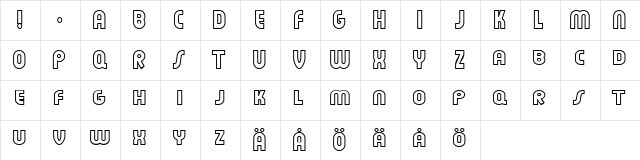
Feuerfeste Outline Normal
Feuerfeste Outline brings ornamental detail and strong personality to headlines and identities, where visual impact matters more than quiet functionality.
Font Pairing: Pair with a clean neutral sans-serif for body copy to let Feuerfeste Outline's character lead without overwhelming the composition.
Pro Tip: Use Feuerfeste Outline exclusively at display sizes — it was designed to be seen, not read at length. Let a neutral companion handle body copy.